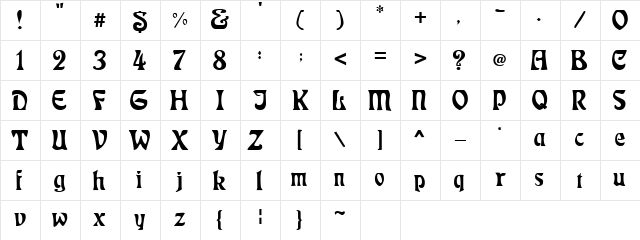
Base:Easter Regular
Design Context for Base:Easter
Base:Easter is a composed and adaptable typeface that performs quietly and consistently across a wide range of design contexts.